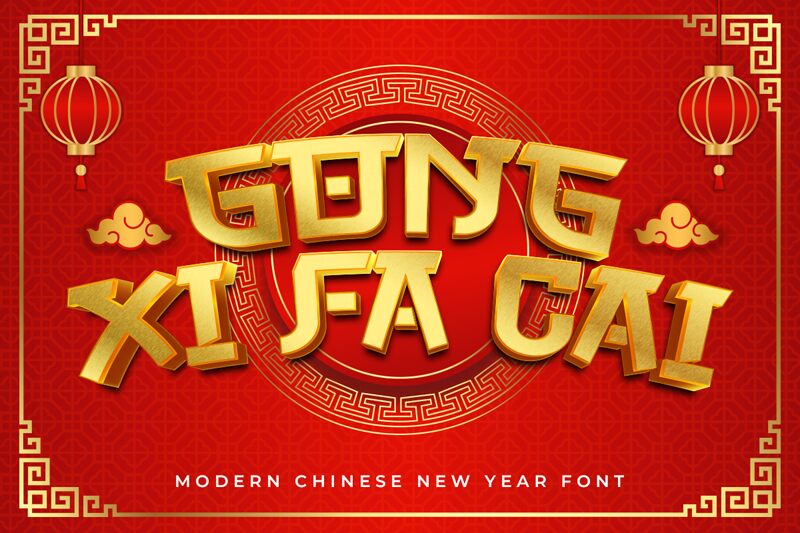
Gong Xi Fa Cai font by Kong Font is a free font unique by its style. Its intriguing three-dimensional characters are designed by using repeating thick geometric outlines. The font is modern and dynamic with an ethnic-inspired touch that makes it looking festive. As the name suggests, it is a font inspired by Chinese culture, sharing a welcoming and bold presence.